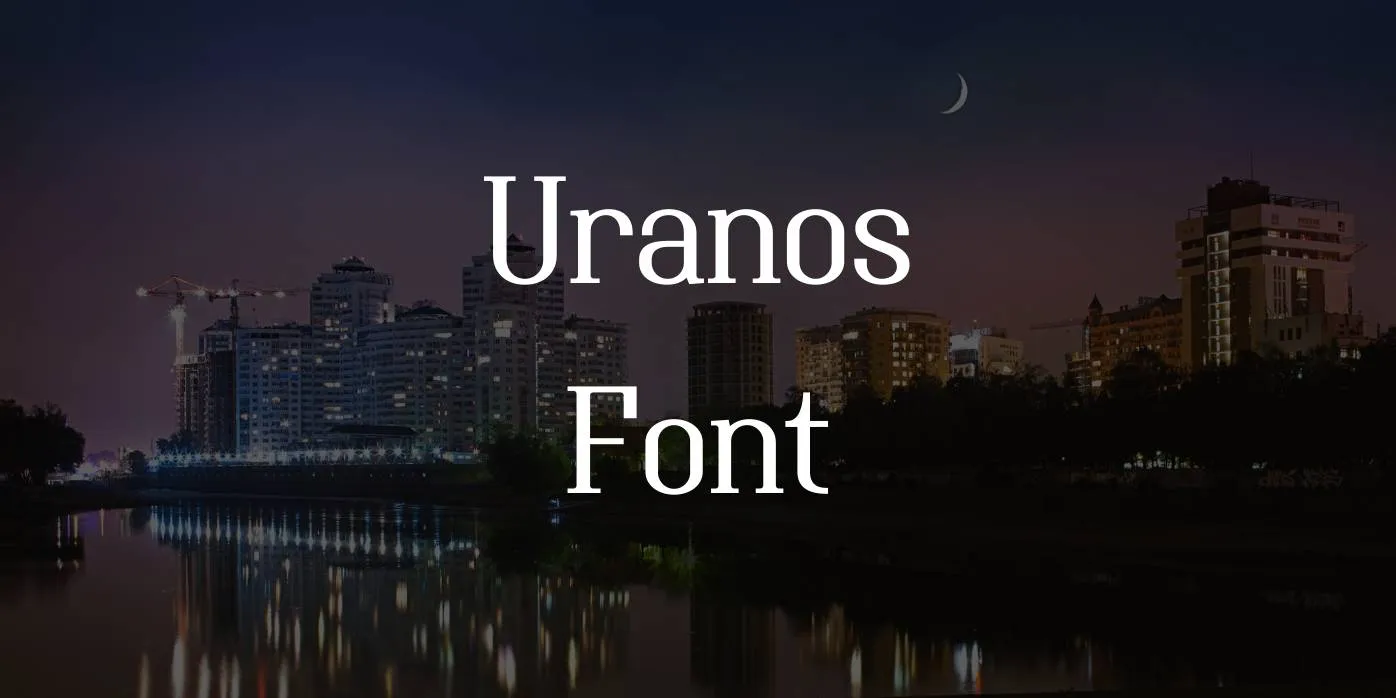
Uranos Font
The Uranos Font is a serif texture and has unique types of characters with beautiful geometric shapes. Uranos Font was designed by Pawet Burgiel in 2016. In this font complete Unicode set in it. Its character set also supports ANSI Western European, Central European Latin 2, Turkish, and Baltic.
It falls under version 2.00 2016. It contains 709 characters and the number of glyphs is 3562. Its weight is normal and its width is medium(normal). Its demo version is only designed to test it and its purpose is to just test if this font is working properly.
But now the demo file is deleted to make use of this make easy for everyone because any other activity is prohibited. Its modern geometric shapes make it looks good and attractive. It has three Families which are: Uranos Regular, Uranos Semi Bold, and Urannos Bold. It supports file formats TTF (True Type Font) and OTF (OpenType Fonts).
You can be downloaded on any device such as Windows/MAC, Linux, IOS, and Android. This font supports so many Unicode blocks like Basic Latin, Latin-1 Latin Extended, Spacing Modifier Letters General Punctuations, Superscript and SubScript, Letterlike Symbols, Number Forms Arrows Mathematical operators, etc. Usage It is a very serif and modern font with the quality of geometric shapes. It can be used for making headlines that can be easily readable.
This font style also makes a good pair with scrubadoo font. It is also suitable for making heading on background images to attract your image look. You can be used for making social media posts and designing images or other projects in Adobe Photoshop. It also provides the facility of an Online generator tool which makes your work easier and more efficient.  It can be used for making eye-catching logos and branding also.